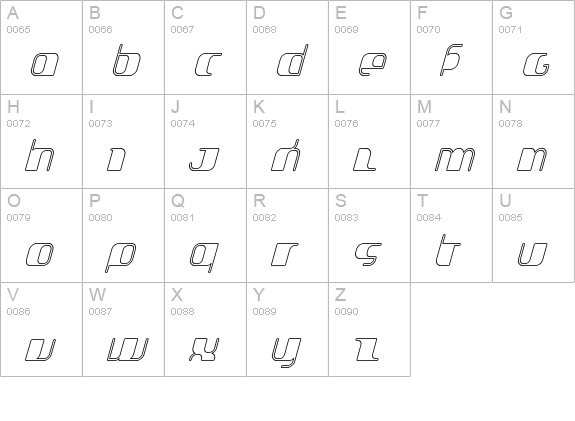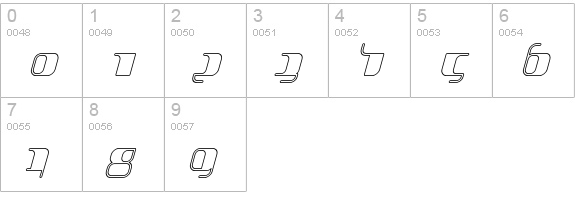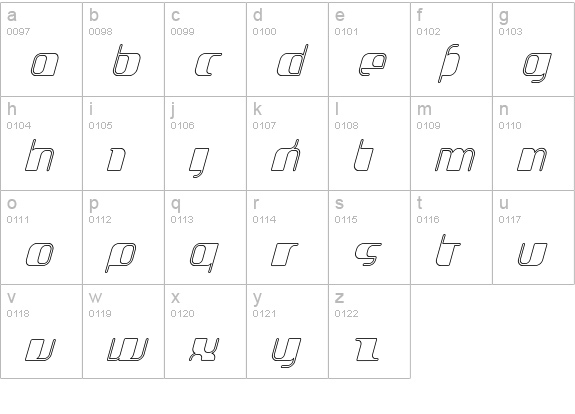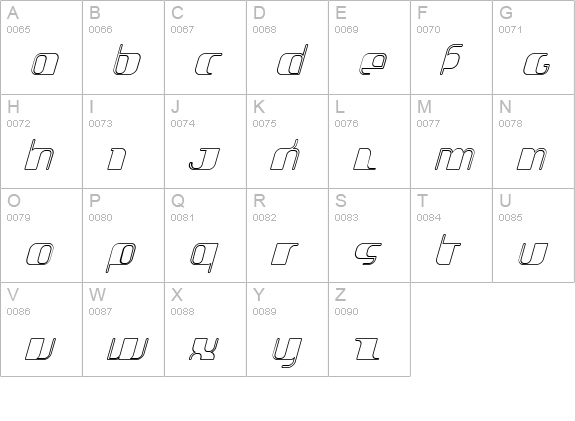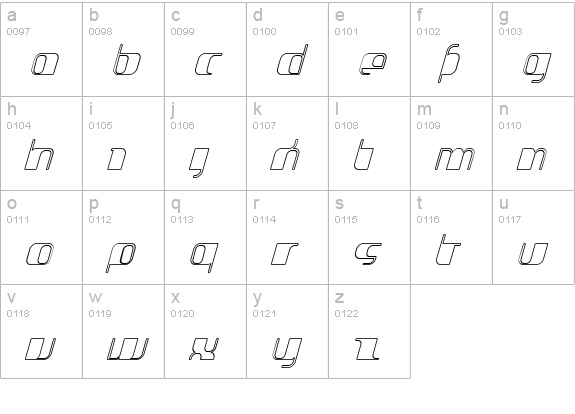
Jakone-OutlineItalic is a modern and stylish font that adds a touch of elegance to any design project. With its unique and eye-catching outlines, this font is perfect for creating attention-grabbing headlines, logos, and signage. The italic style adds a sense of sophistication and flair, making it ideal for luxury brands, fashion magazines, and high-end websites. What makes Jakone-OutlineItalic even more appealing is that it is completely free to download. You can easily access this font at FontsMarket.com, where you will find a wide selection of high-quality fonts for all your design needs. Whether you are a professional graphic designer or a hobbyist, this font offers endless creative possibilities. The clean and crisp lines of Jakone-OutlineItalic make it highly legible, ensuring that your message is conveyed clearly and effectively. It is designed with precision and attention to detail, resulting in a polished and professional look. The thin and delicate outlines give this font a delicate and refined appearance, making it suitable for a variety of design applications. Whether you are designing a wedding invitation, creating a poster, or revamping your website, Jakone-OutlineItalic is a versatile and reliable font choice. Its timeless appeal and modern aesthetics make it a perfect fit for both contemporary and classic designs. The italic style adds a sense of movement and dynamism, creating a visually striking impact. Don't miss out on the opportunity to enhance your design projects with Jakone-OutlineItalic. Download this font for free at FontsMarket.com and elevate your designs to new heights. With its sleek and refined look, this font is sure to captivate and engage your audience. So why wait? Start using Jakone-OutlineItalic today and bring your designs to life.